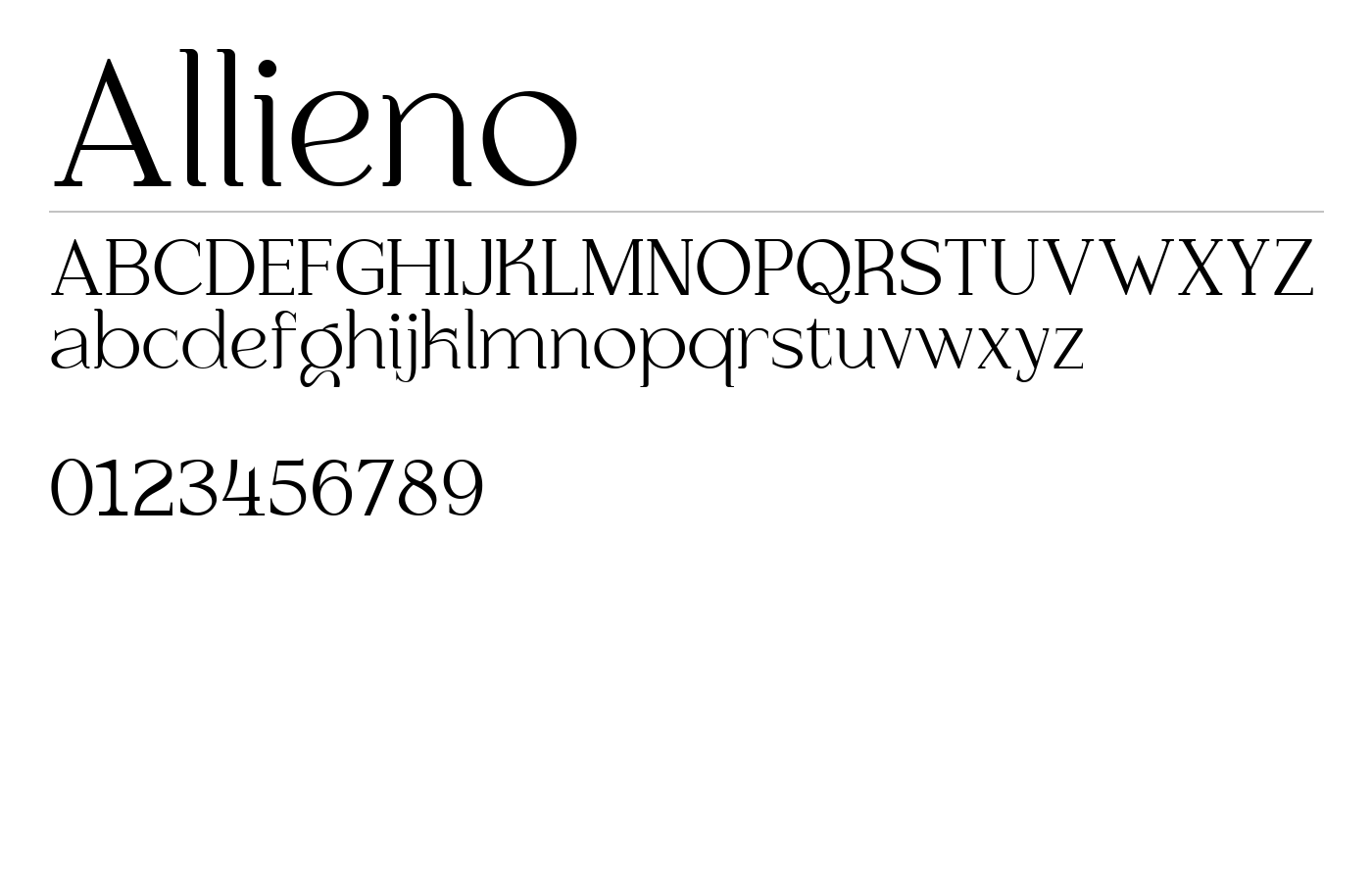
Allieno is a refined serif font with elegant, slender strokes and moderate contrast that lends it a sophisticated and timeless appearance. Its delicate serifs and unique letterforms, such as the single-story 'g' and distinctive 'Q' tail, make it ideal for fashion, editorial, and luxury branding where a touch of classic elegance is desired. This font works beautifully in headlines and display text, offering a stylish and graceful feel that enhances high-end design projects.
Allieno Font
About Allieno Font
| Designer | Keristyper Team |